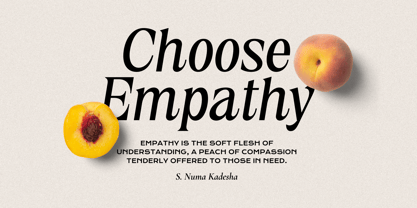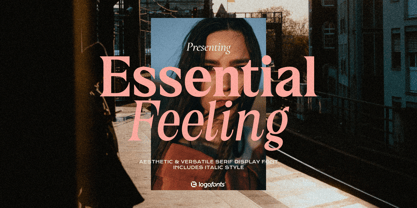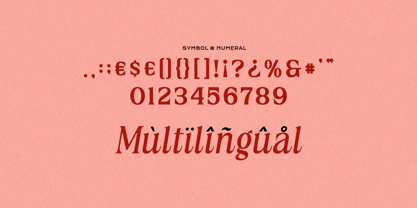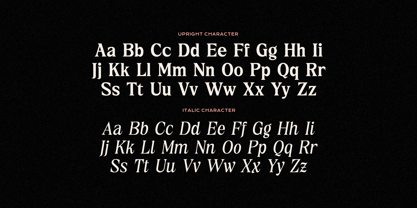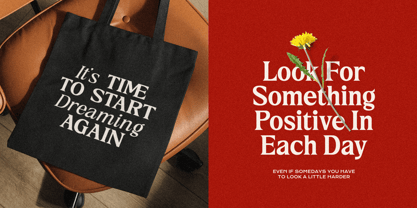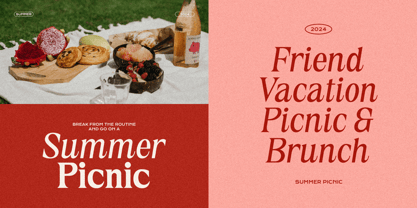
Essential Feeling
by Logofonts
Essential Feeling Font Family was designed by Anna Safitri and published by Logofonts. Essential Feeling contains 2 styles family package options.
Essential Feeling is a striking modern serif display font designed to bring a blend of classic elegance and contemporary style to your typography. Featuring clean, sharp serifs and subtle curves, this typeface adds a sophisticated touch to any design. The high contrast between thick and thin strokes enhances its visual appeal, making it ideal for bold headlines, editorial layouts, branding, and other high-impact designs. Its refined details provide a perfect balance of readability and luxury, giving your projects a timeless yet modern edge. Whether used in large sizes or as a focal point, Essential Feeling will stand out and leave a lasting impression.